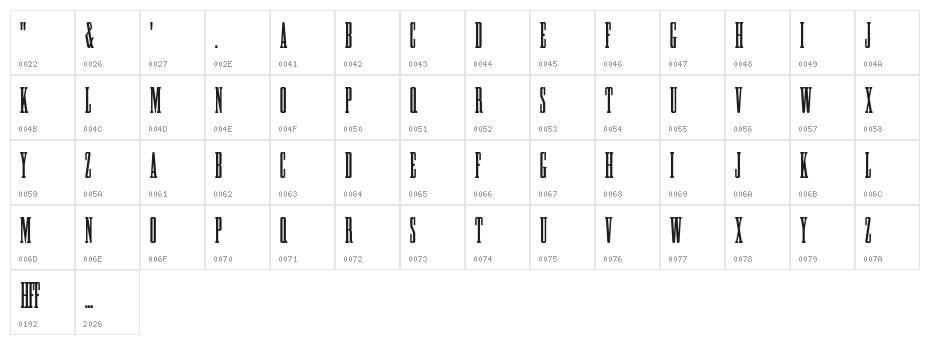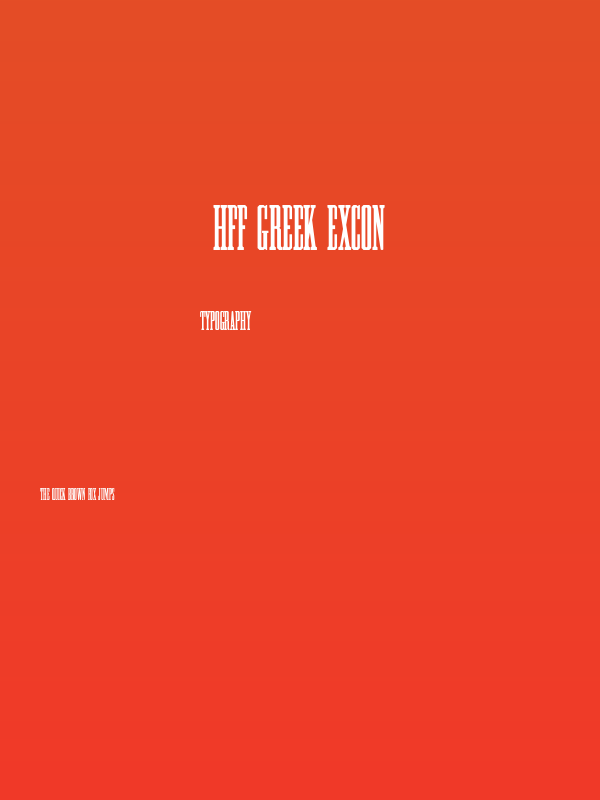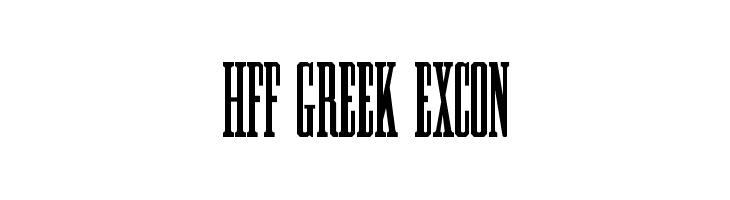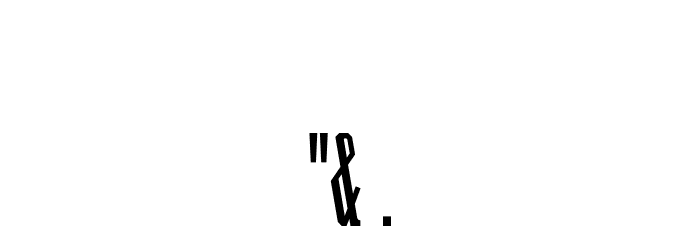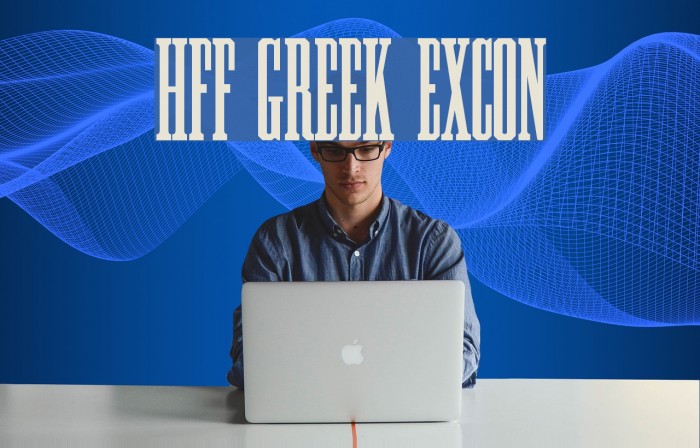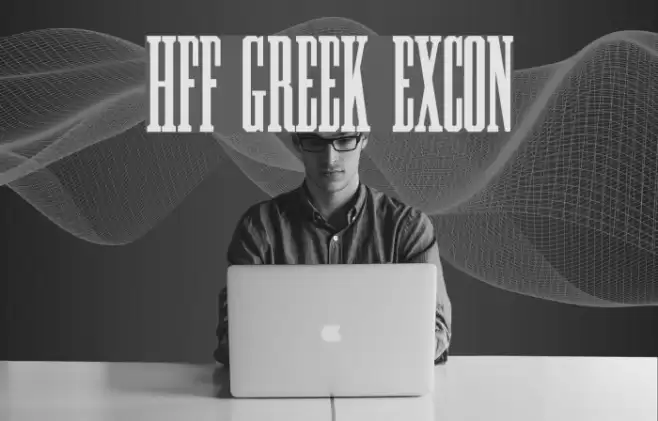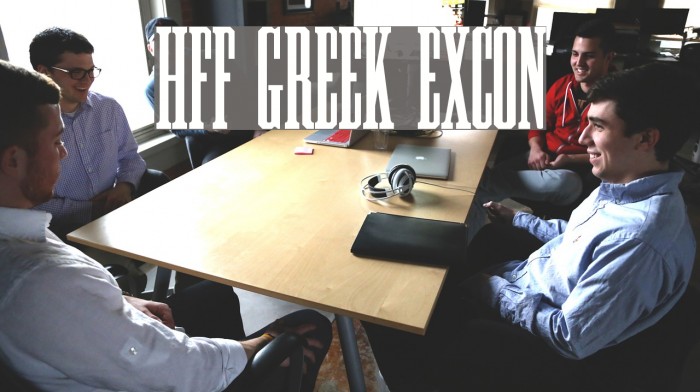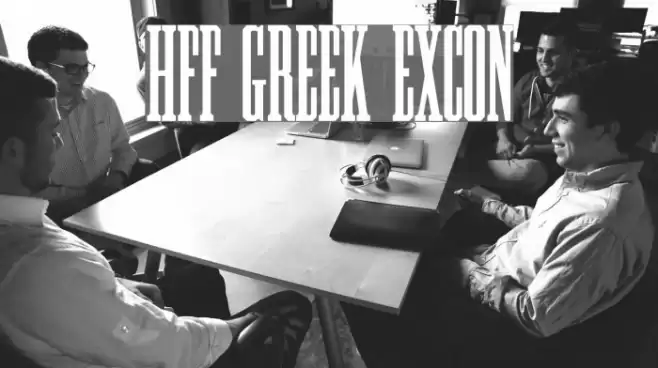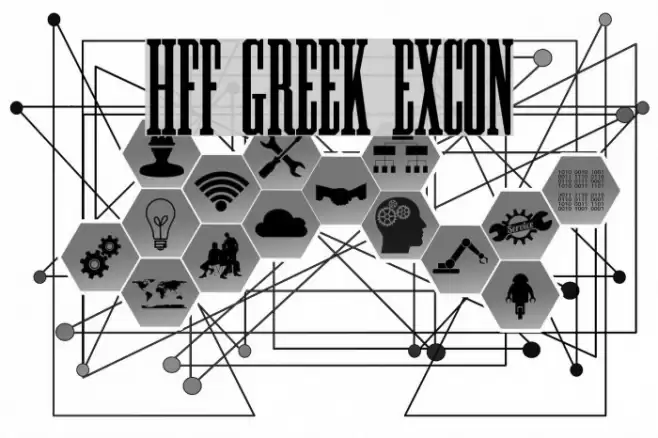
HFF Greek ExCon Font
HFF Greek ExCon Description
This font features a bold and condensed style with tall, narrow characters that exude a strong and impactful presence. The uppercase letters are particularly striking, with a vertical emphasis that makes them stand out. The font's design is reminiscent of vintage poster typography, offering a classic yet bold aesthetic. The characters are tightly spaced, enhancing the condensed appearance. The font lacks lowercase letters, focusing solely on uppercase and a limited set of special characters. Its high contrast in stroke thickness adds to its dramatic and eye-catching look.
| Width | Condensed |
| Overall Style | Vintage |
| Proposed Projects | Ideal for vintage-themed posters, headlines, and branding projects that require a strong visual impact. |